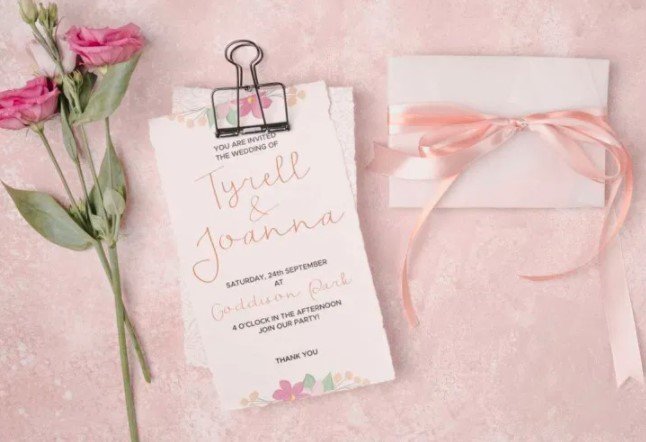
The great and best handwritten typeface that can be used as pairing with code pro font can be used for all kinds of commercial designs which can be built for
Introducing the well-known typeface with you that is Feliciana Handwritten typeface which is a perfect and unique project typeface that will give your project the amazing charm, beauty, and handcrafted styles for your designs.
The great and best handwritten typeface that can be used as pairing with code pro font can be used for all kinds of commercial designs which can be built for free without any cost. It was used by popular graphic designers and web makers.
Also, this can easily workable with the combination of the typeface which will give you a more unique tool to generate your content uniquely.